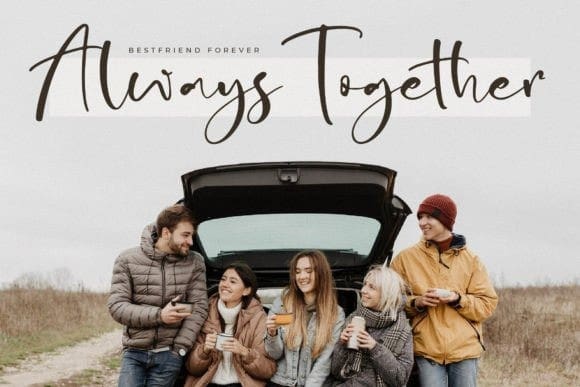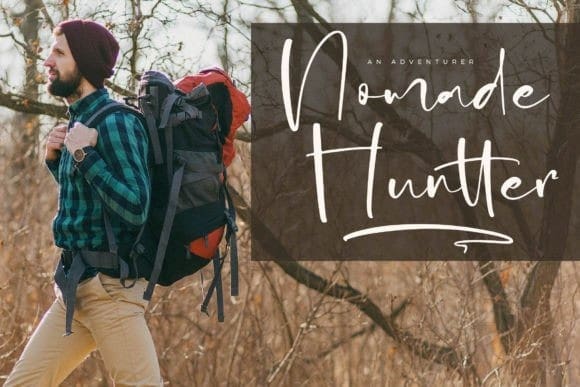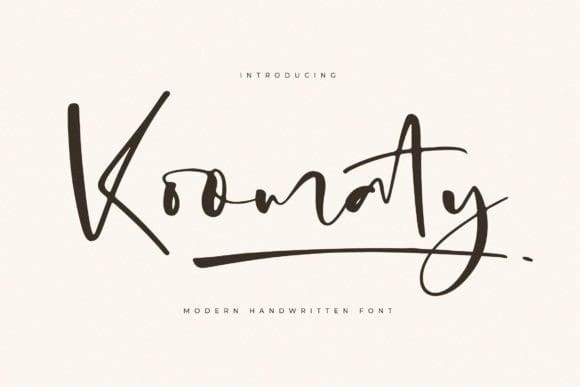
Koomaty Script Font
Koomaty Script Font,  is a beautiful and light handwritten font with a unique feel and a stunning impact. It will add a fresh and trendy spark to any design project that you wish to create!